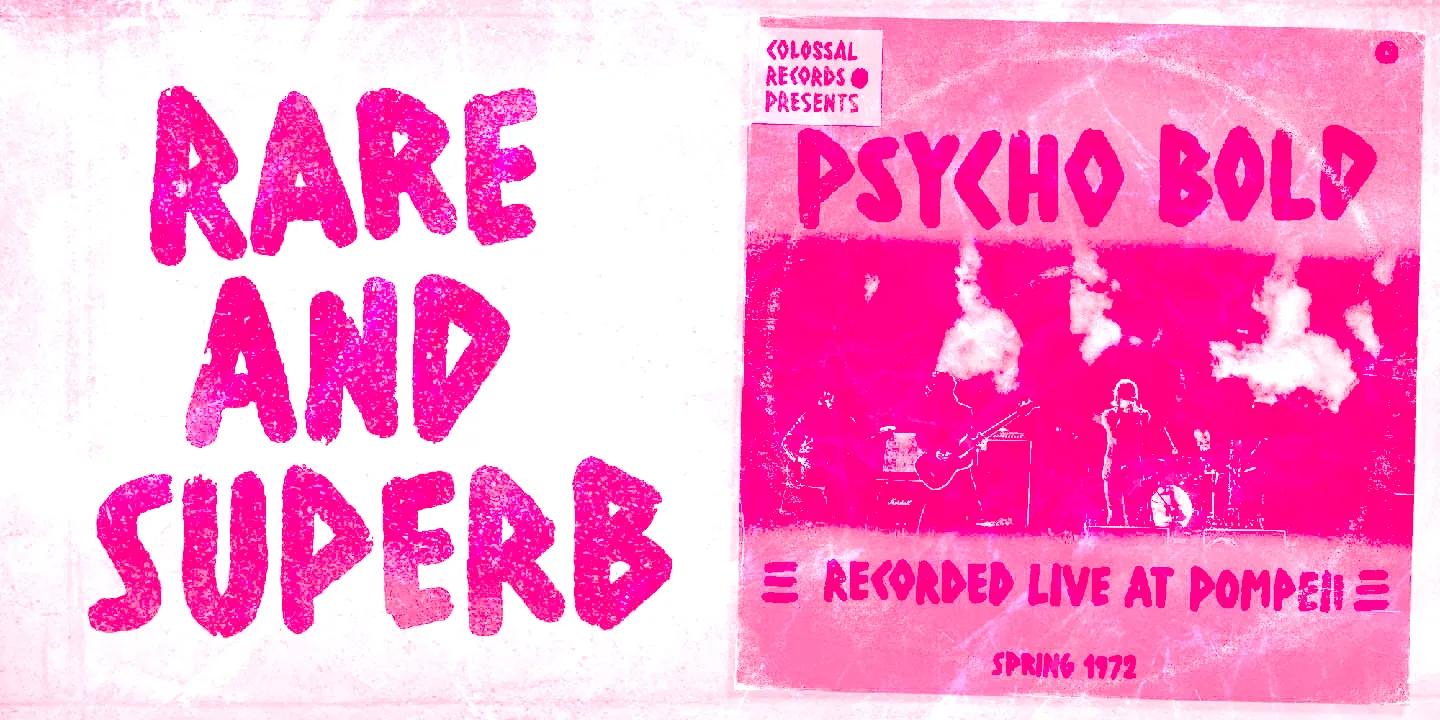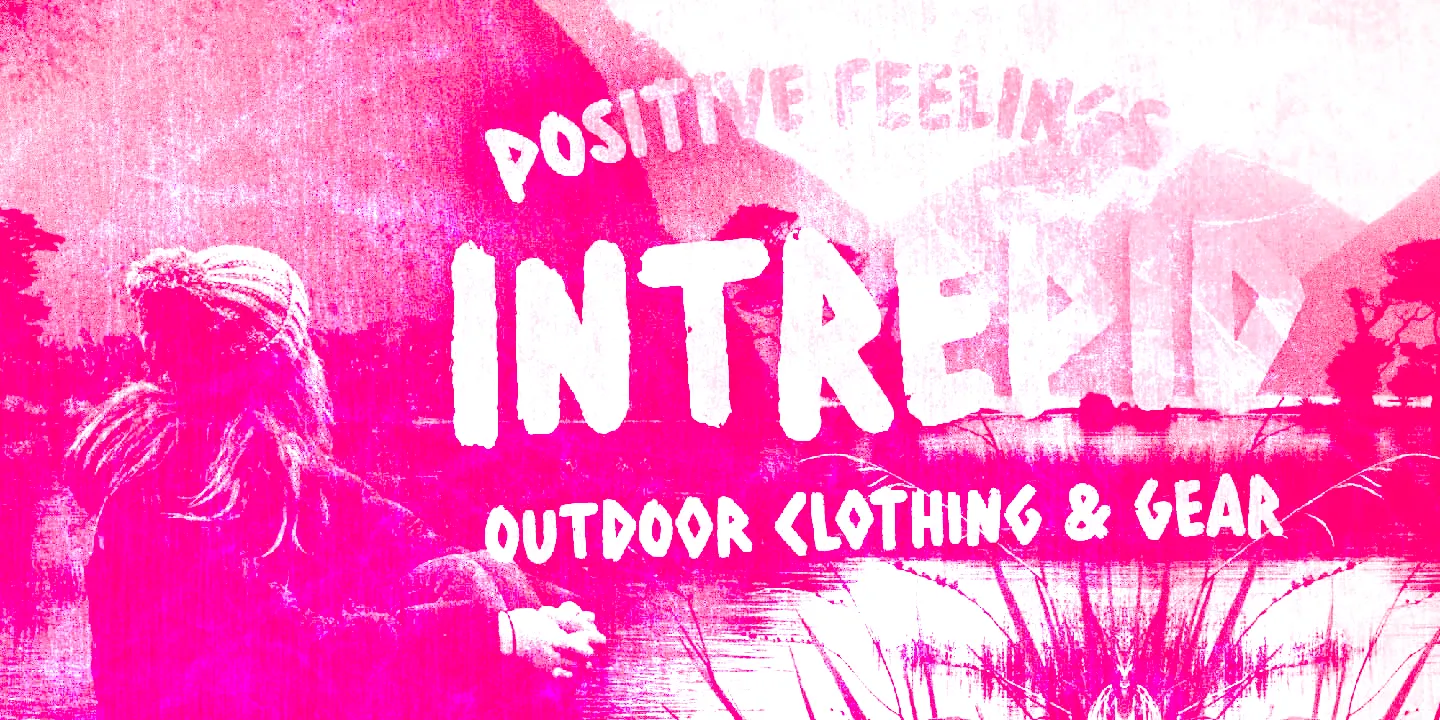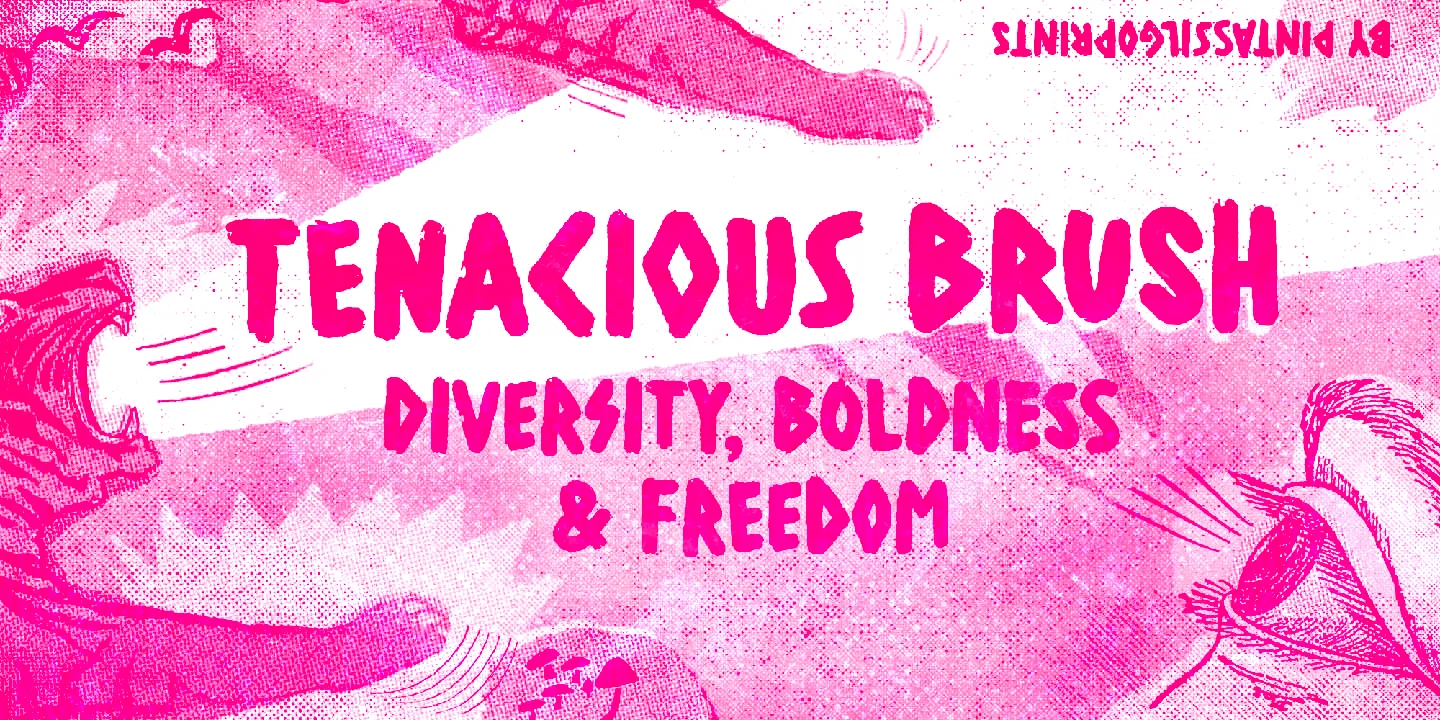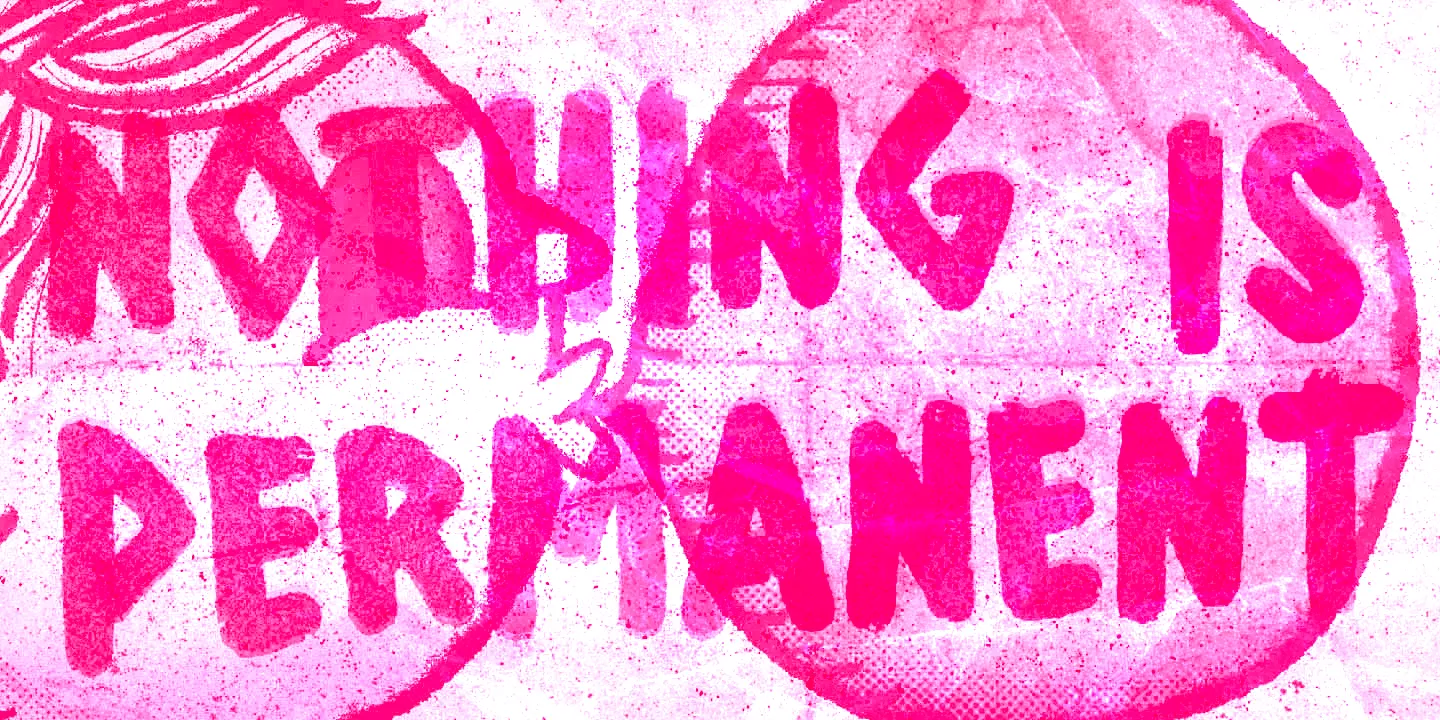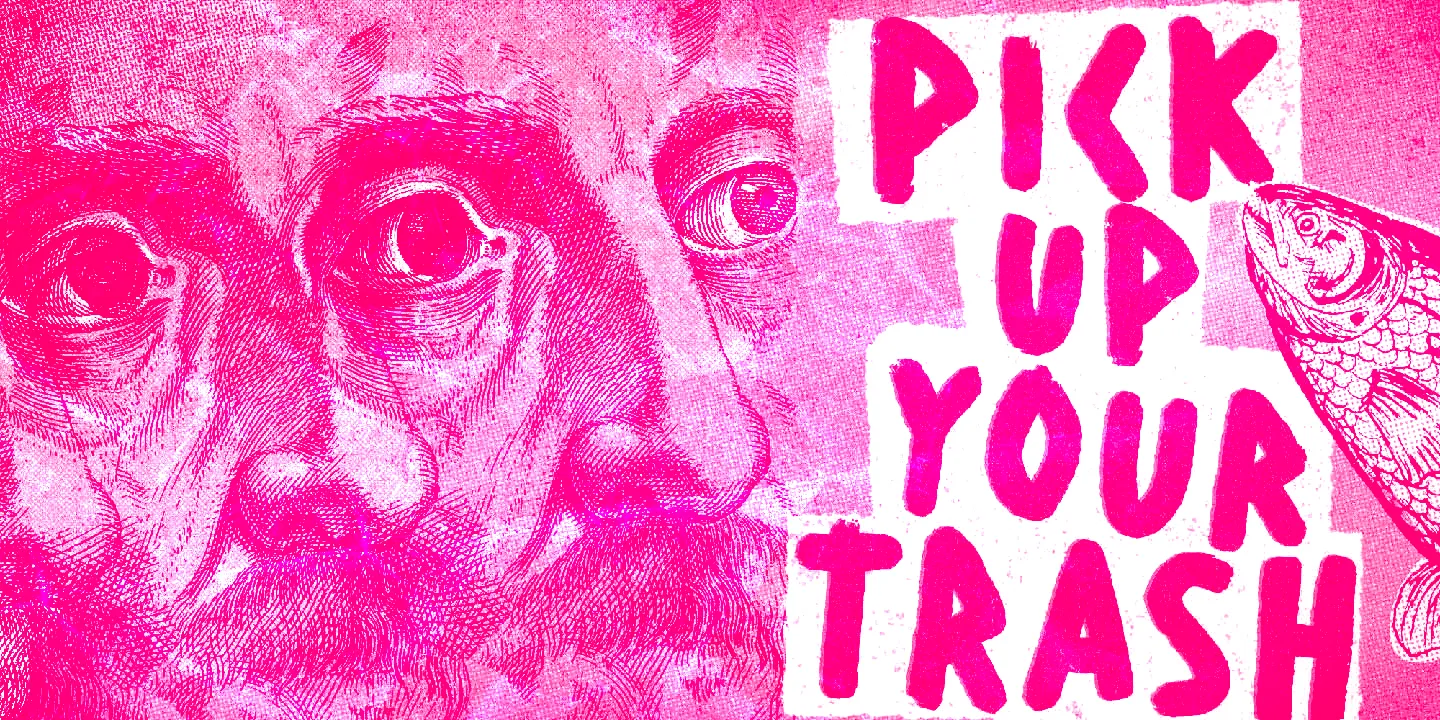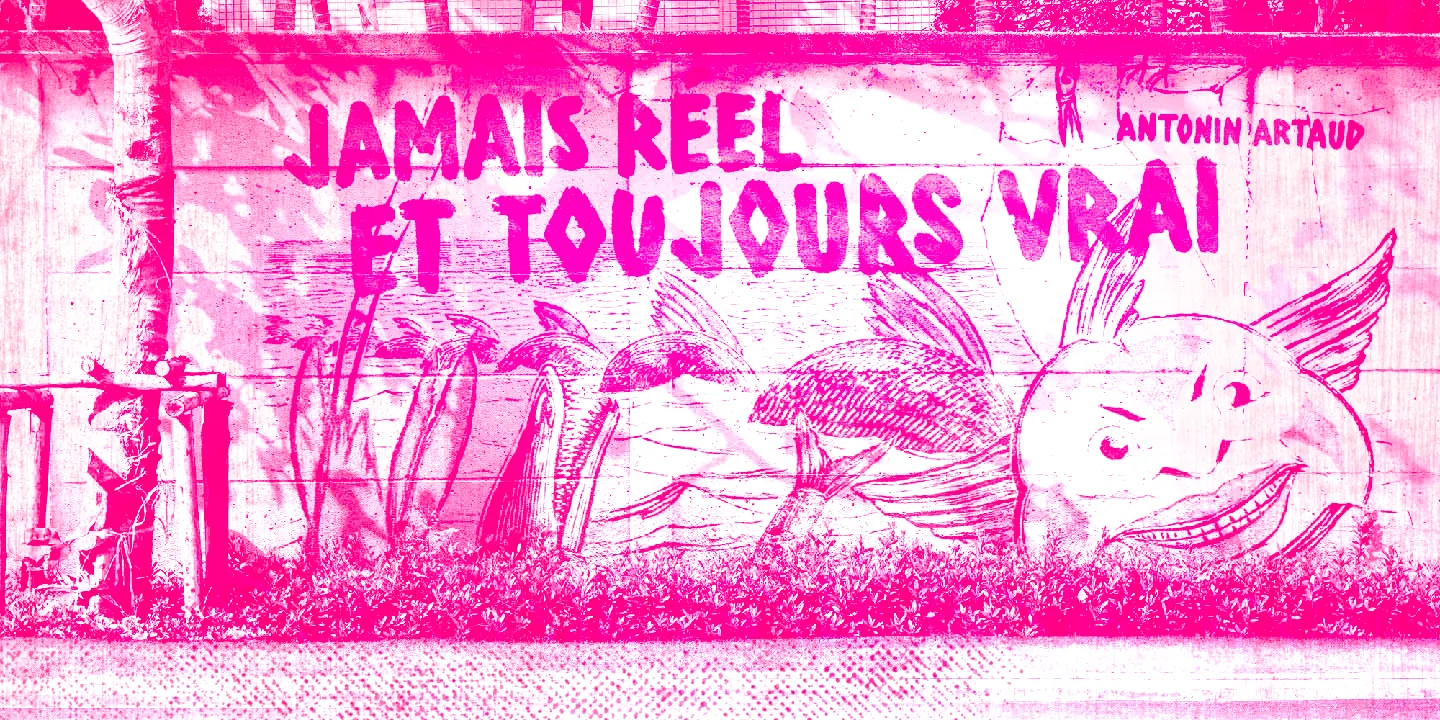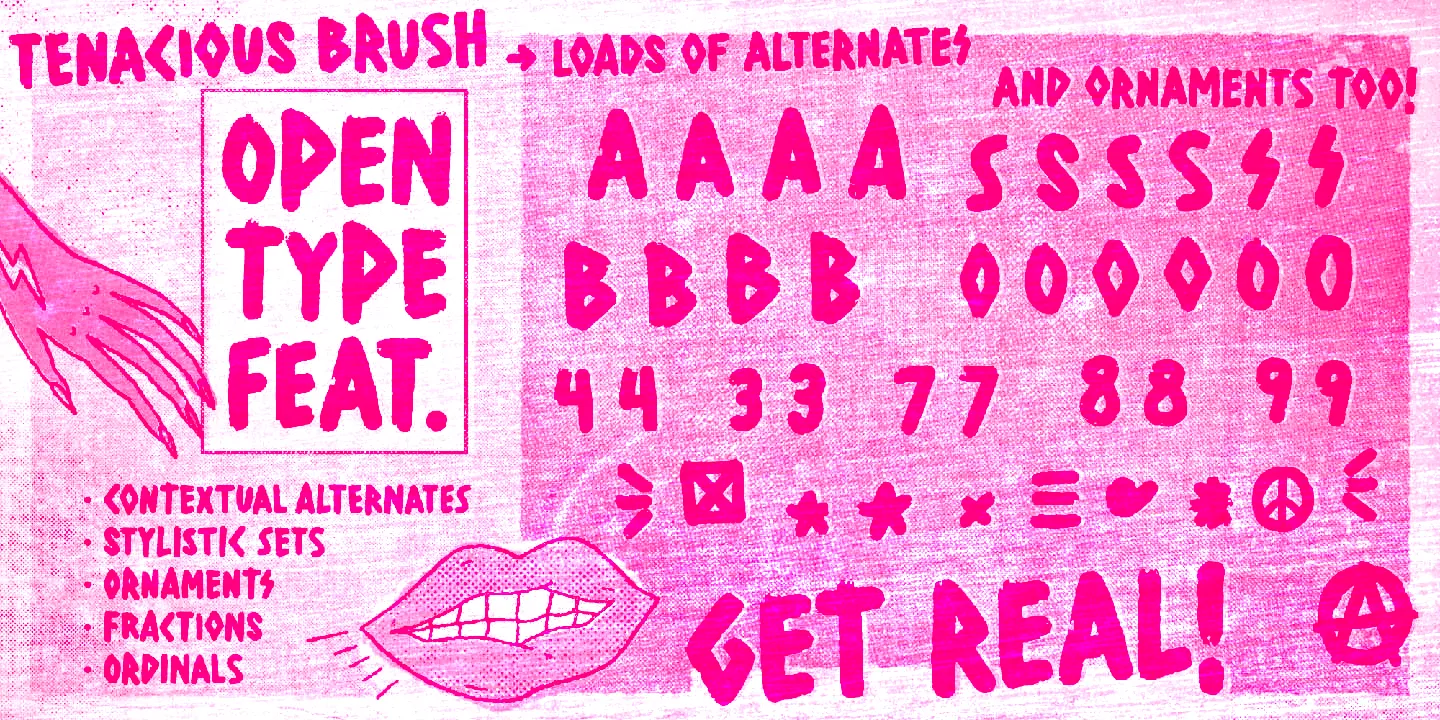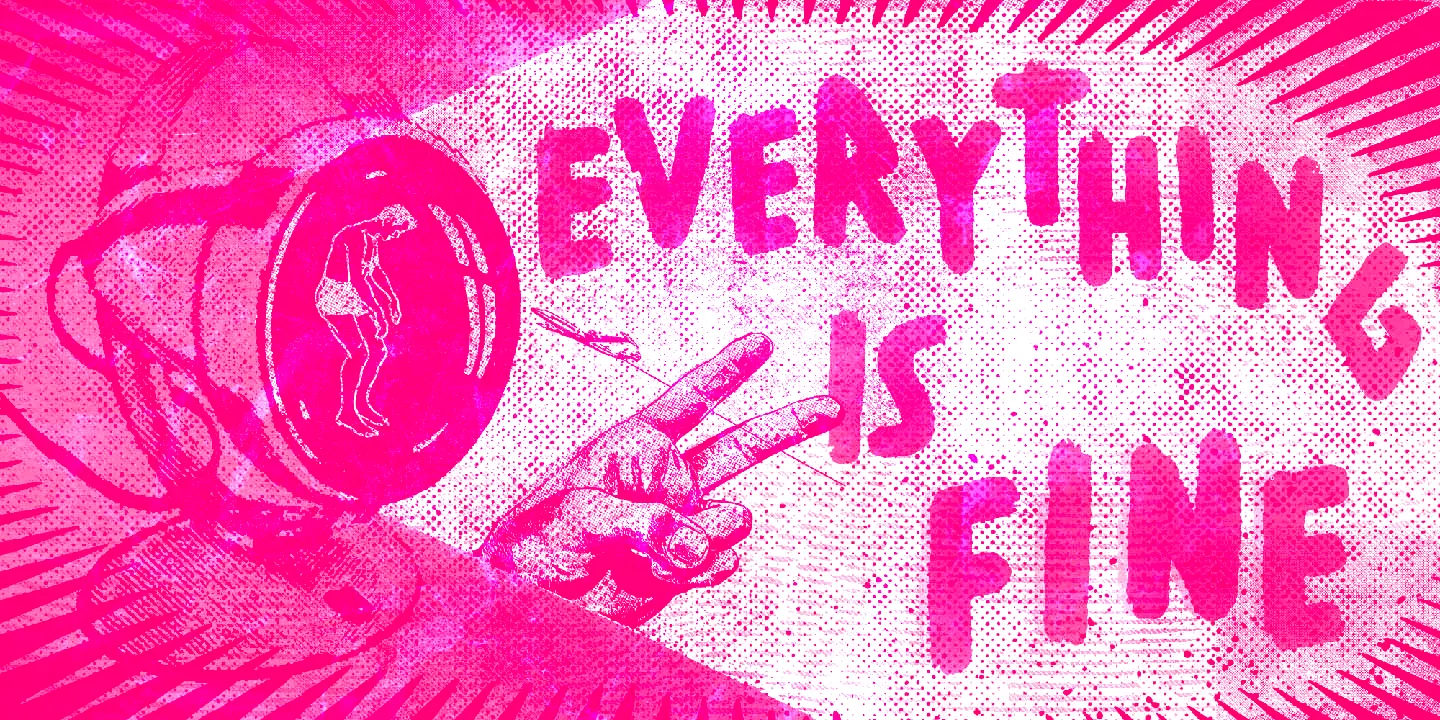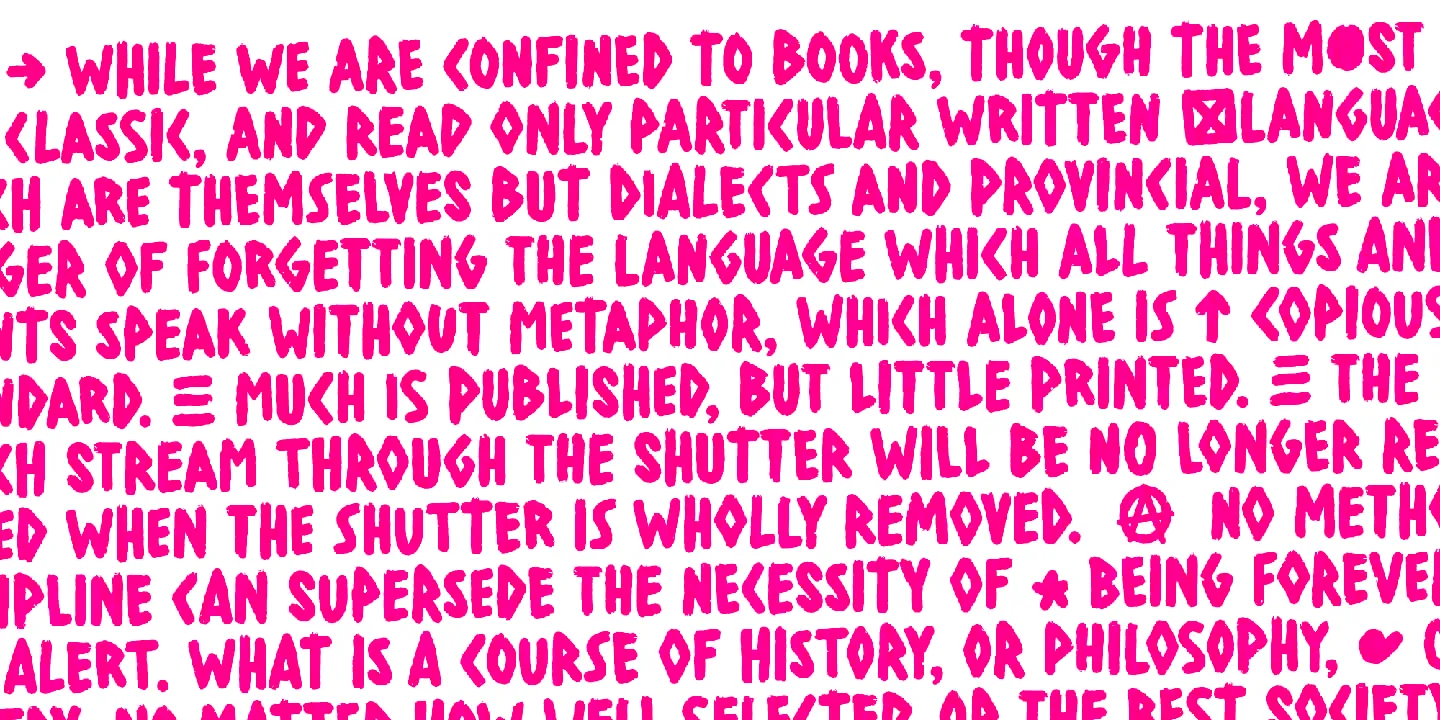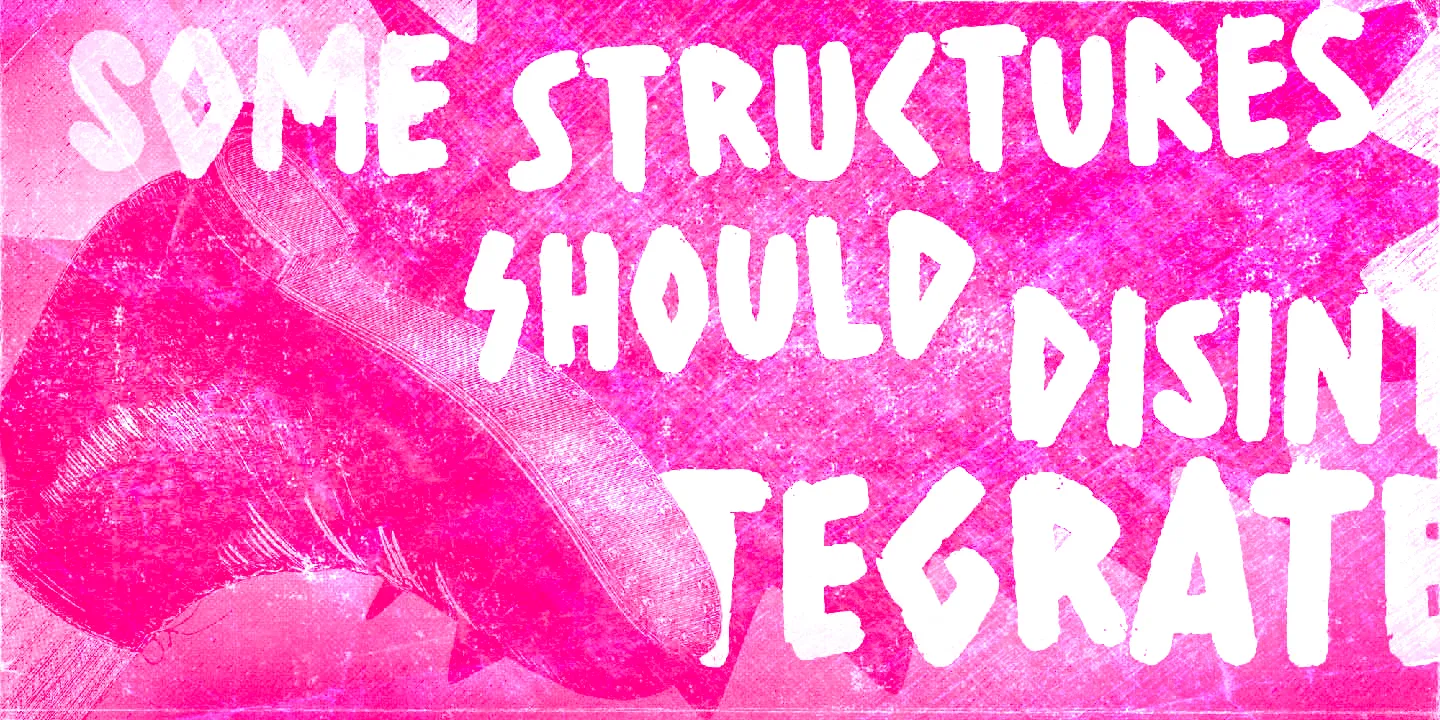
Tenacious Brush
Tenacious Brush is an expressively rebellious, provocative, free-spirited, and wild-hearted typeface. It’s an all-caps face, with four alternates for each letter and two for each numeral — some letters also have stylistic choices. All of this lends itself to the desired spontaneous hand-painted feel. Tenacious Brush also features some useful ornaments to add an extra buzz here and there. Definitely a cool brush font with a modern punch, offering endless design possibilities: logos, poster art, branding, bold imagery, packaging, t-shirts, apparel, and much more!
- Fractions
- Ordinal Numerals
- Ornaments
- Stylistic Alternates
- Stylistic Sets
- Superscript